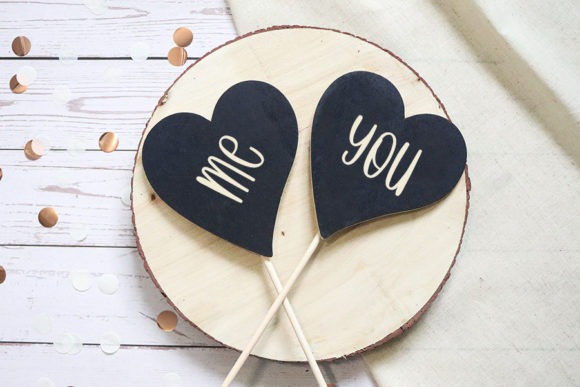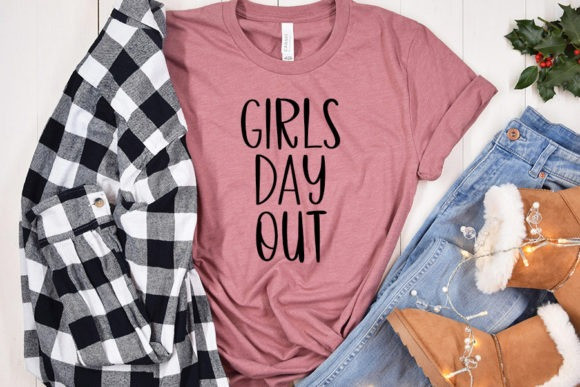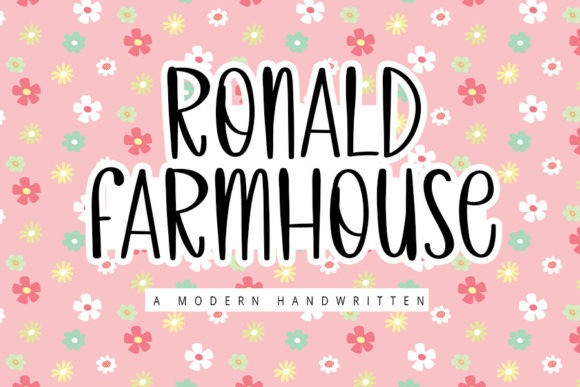
Ronald Farmhouse Font
Ronald Farmhouse Font is a delicate and elegant handwritten font. Its distinct and well balanced letters make this font a masterpiece. Fall in love with its incredibly versatile style and use it to create spectacular designs!